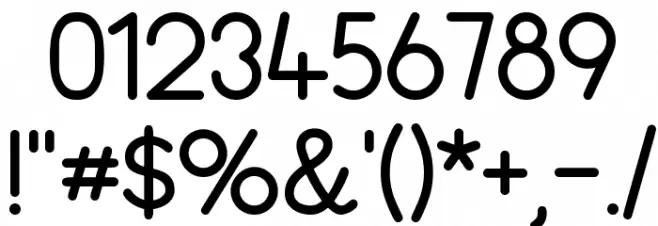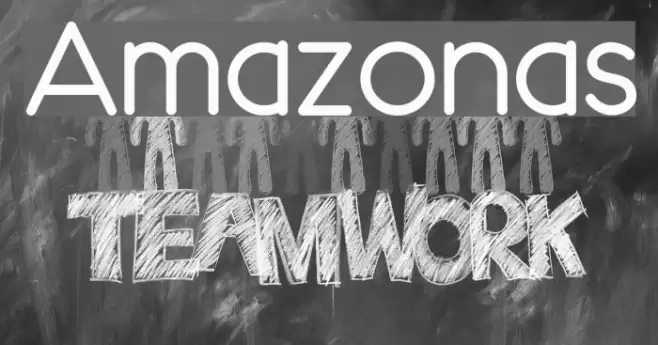
Amazonas Font
Amazonas Description
This font features a clean and modern sans-serif style with rounded edges, giving it a friendly and approachable appearance. The characters are evenly spaced with a consistent stroke width, contributing to its legibility and versatility. The uppercase and lowercase letters maintain a uniform height, while the numerals are clear and distinct. Special characters are well-integrated, ensuring comprehensive usability across various applications. Its simplicity and clarity make it suitable for both digital and print media, providing a contemporary aesthetic that is both functional and visually appealing.